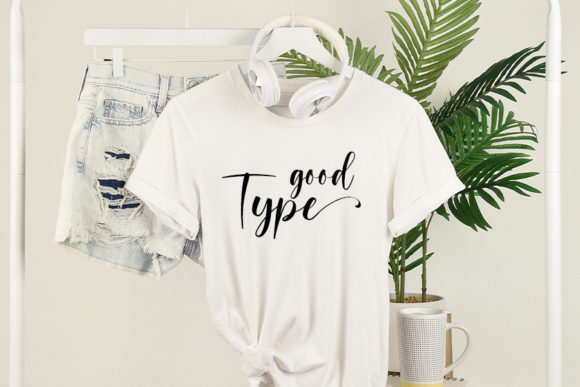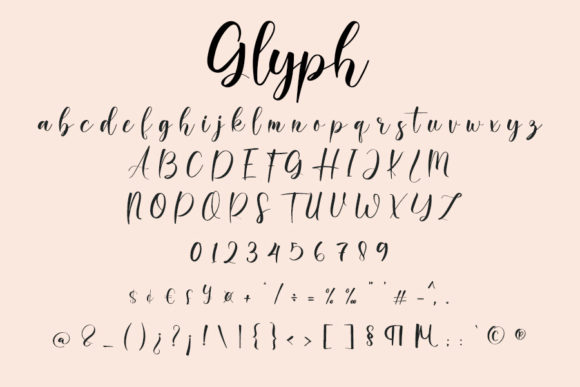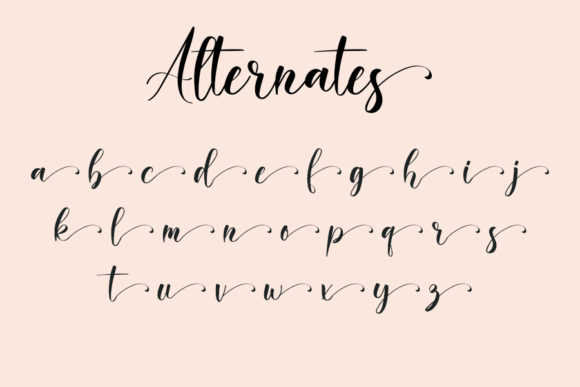
Introduction to Pastella Font
Pastella is a cool, casual and relaxed handwritten font.
Whimsical and a bit quirky, this font will brighten up each of your designs Pastella is PUA encoded which means you can access all of the glyphs and swashes with ease.